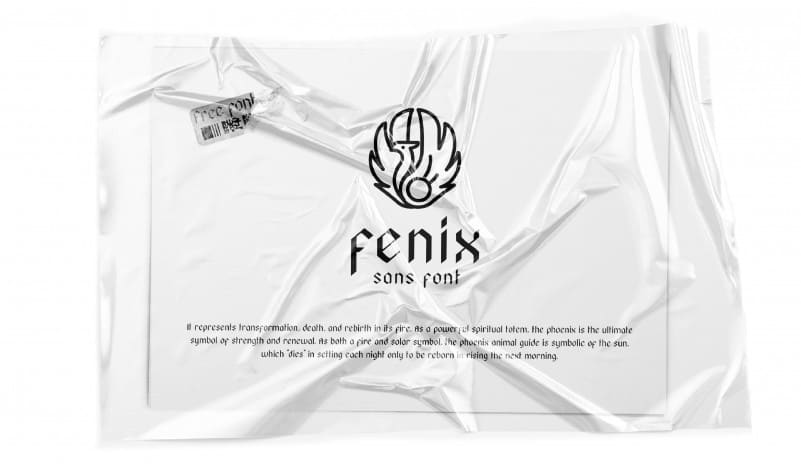
Fenix Sans Font
Fenix Sans Font represents transformation, death, and rebirth in its fire. As a powerful spiritual totem, the phoenix is the ultimate symbol of strength and renewal.
As both a fire and solar symbol, the phoenix animal guide is symbolic of the sun, which “dies” in setting each night only to be reborn in rising the next morning.
Fenix Sans Font has the inspiration of a traditional calligraphic gothic font mixed with some modern and humanistic characteristics.
Versatile in all branches of design.